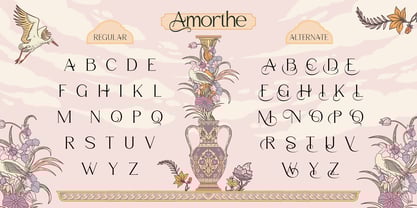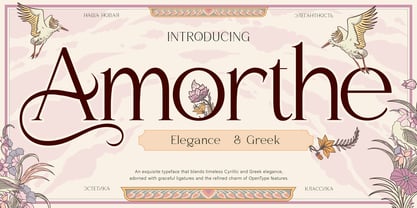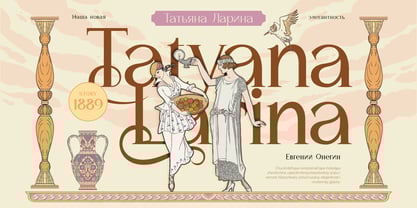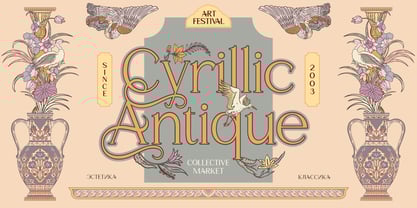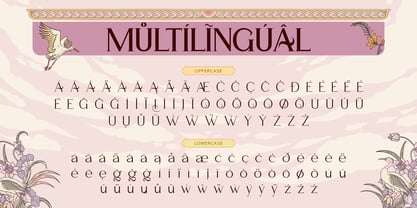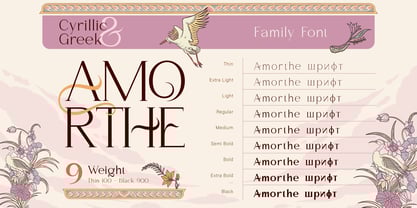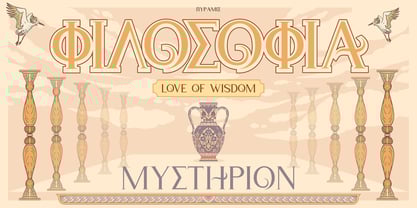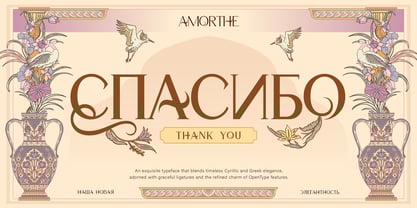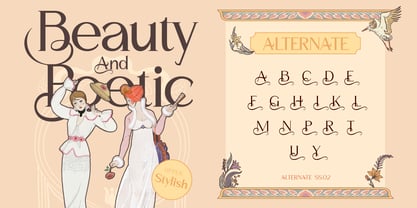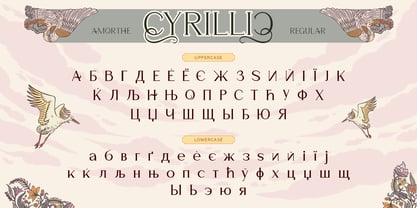
Amorthe
by Burntilldead
The Amorthe Font Family was designed by Eric Kurniawan and published by Burntilldead. Amorthe contains 9 styles and family package options. More about this family
Introducing Amorthe—where timeless elegance dances with modern versatility. A multilingual powerhouse (Cyrillic, Greek, and beyond), adorned with playful alternates that whisper secrets to the serifs.
Why it’s extraordinary:
• 9 weights from whisper-thin to bold statements—perfect for headlines, body text, and everything in between.
• Dual charm: Timeless like Chanel No. 5, yet fresh with customizable alternates.
• For the refined taste: Luxury brands, editorial spreads, and premium packaging (wine, Belgian chocolates, perfume, skincare—yes, it’s that chic).
If Amorthe were human, she’d be Audrey Hepburn: effortlessly classy, fluently multilingual, and hiding delightful surprises beneath her grace.
Designers: Eric Kurniawan
Current Foundry: Burntilldead